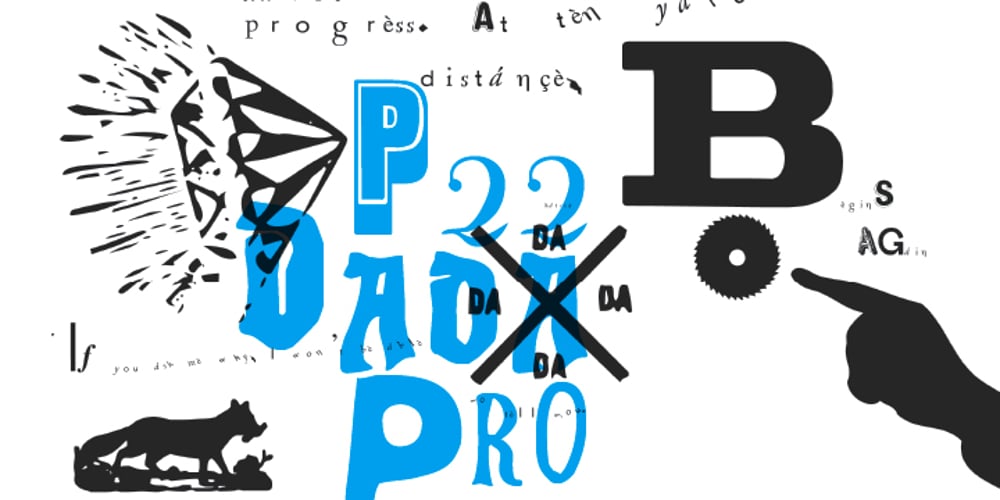
P22 Dada
P22 Dada font
P22 Dada Font Family was designed by Richard Kegler and published by P22 Type Foundry. P22 Dada contains 2 styles and family package options. The original idea of the Dada font and randomness was given new life with the introduction of OpenType programming. P22 Dada Pro includes over 500 glyphs of letters and images and can be used to create Dada inspired typography by simply selecting various OpenType features.P22 Dada Pro was released in 2006 as “Dada Special Edition” to coincide with the “First Major International Dada Museum Exhibition in The United States” at the National Gallery of Art.